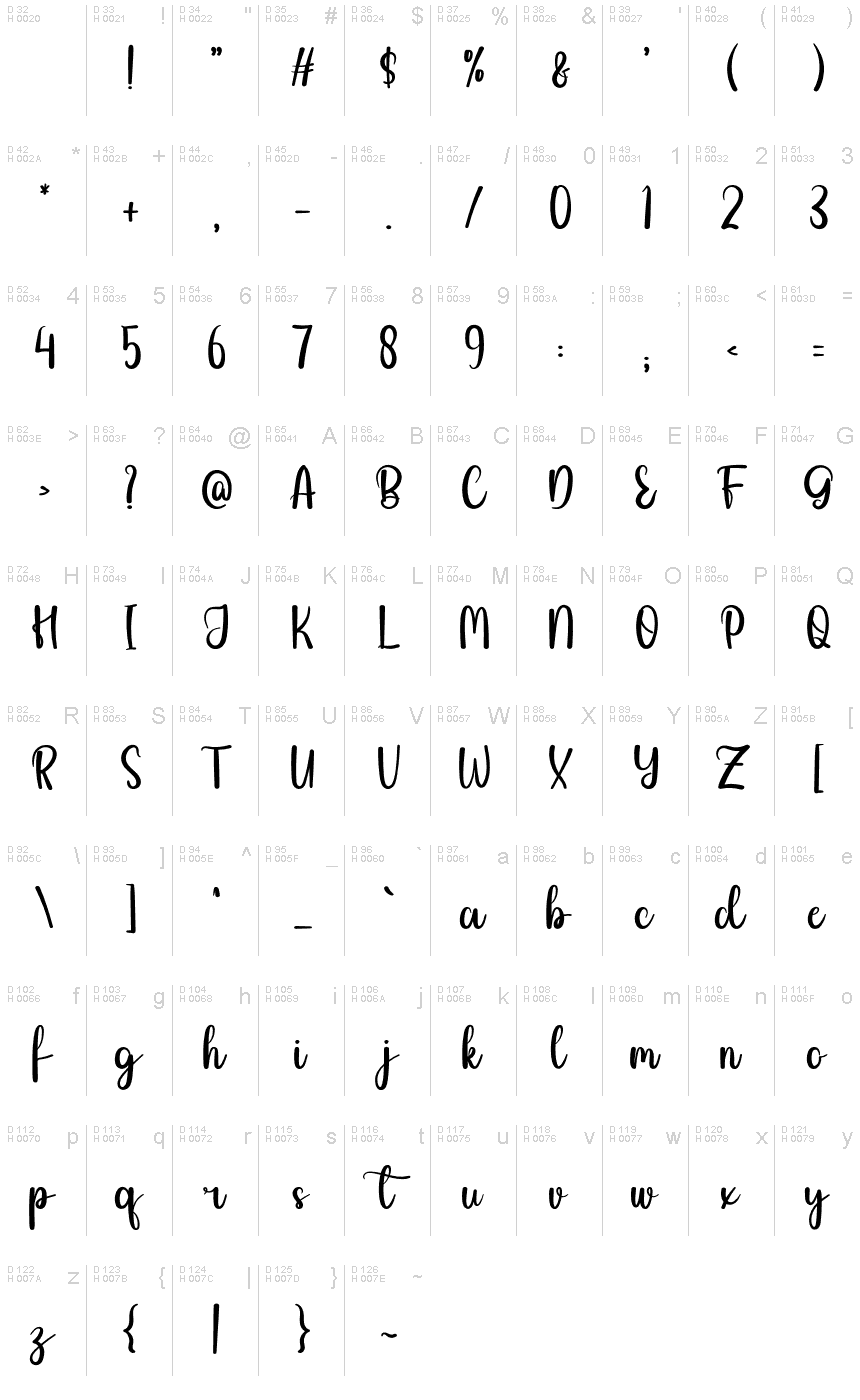
Disney Dreams
Disney Dreams is a handwritten font designed by Inermedia Studio. It's perfect for projects requiring an elegant and personal touch, such as logos, invitations, greeting cards and quotes. Its whimsical design also makes it ideal for creating unique children's books and posters.